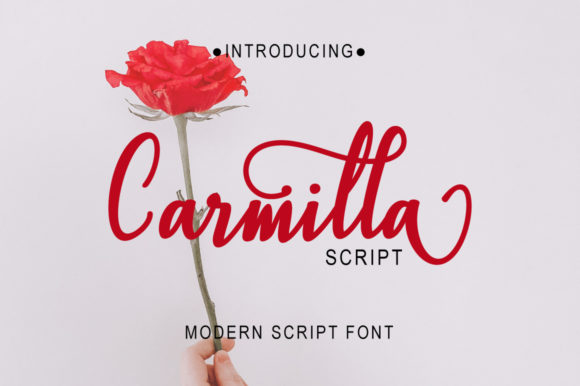
Presenting Carmilla Font: A Symphony of Script, Perfect for Your Christmas Sign Design
In the realm of typography, there exists a font that weaves a captivating spell of elegance and charm. Carmilla Font, a mesmerizing script font, is the embodiment of artistic grace, inviting you to elevate your Christmas sign designs to new heights of beauty and enchantment.
Step into a world where letters dance with a delicate fluidity, intertwining like snowflakes caught in a gentle breeze. Carmilla's light handwritten style exudes a touch of whimsy and playfulness, reminiscent of a child's handwritten letter to Santa. Each character bears a unique personality, adorned with intricate flourishes and swashes that add a touch of sophistication and charm.
With Carmilla Font as your creative companion, your Christmas signs will radiate a warm and inviting glow, beckoning passersby with a promise of festive cheer and goodwill. Imagine your designs adorned with Carmilla's elegant script, transforming ordinary words into enchanting messages of joy, love, and holiday spirit.
Carmilla Font is more than just a collection of letters; it is an artistic expression that transcends the boundaries of language. Its versatility extends beyond Christmas signs, making it the perfect choice for a wide range of creative projects. From wedding invitations and greeting cards to branding and social media graphics, Carmilla's timeless appeal adds a touch of elegance and sophistication to any design.
Let Carmilla Font be your muse, inspiring you to create designs that capture the essence of the holiday season. Its enchanting script will weave a web of wonder and delight, transporting your audience to a realm of festive magic.